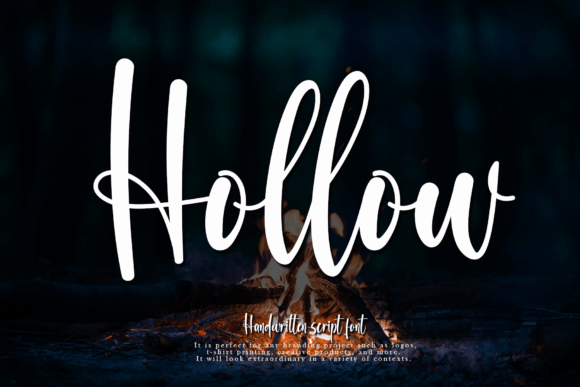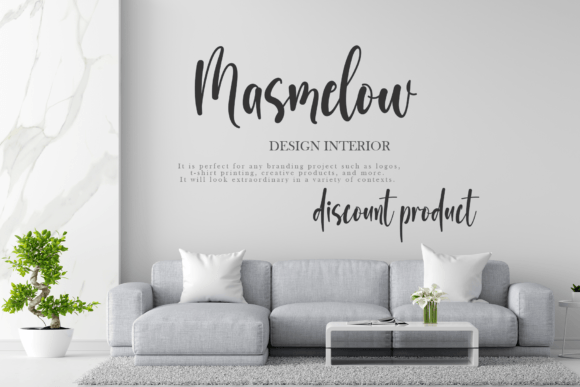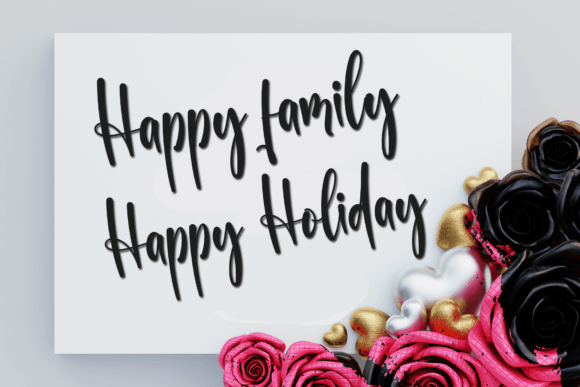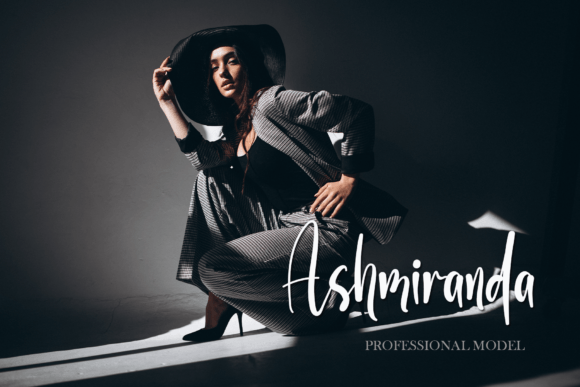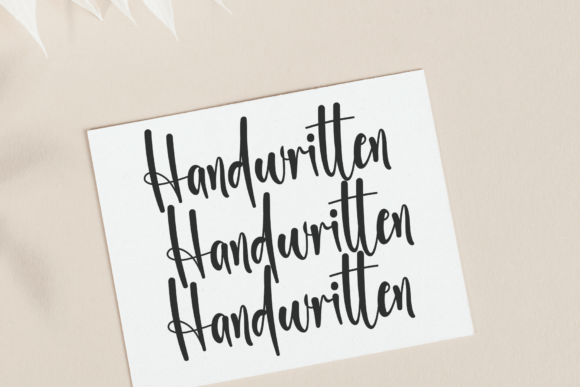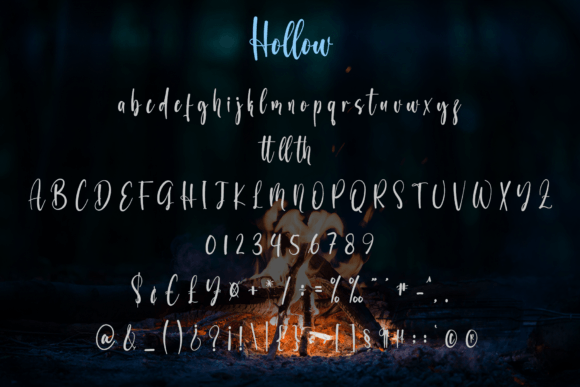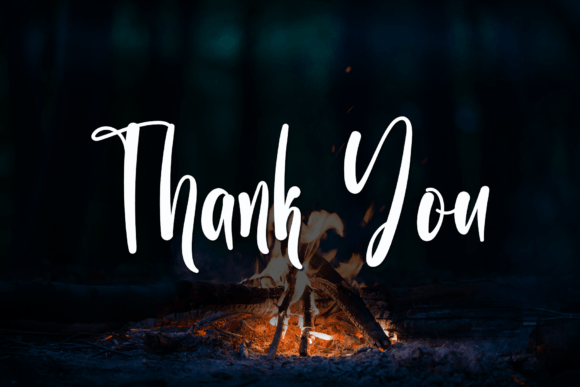
Hollow Font
About Hollow Font
Hollow is a charming and distinctive handwritten font that effortlessly combines simplicity with a quirky flair. With its classy, elegant, and modern appearance, this font is a versatile choice suitable for a variety of creative applications. Whether you’re working on logos, branding, invitations, stationery, wedding designs, social media posts, or any other project, Hollow adds a unique touch to elevate your visual content.
The simplicity of Hollow gives it a timeless quality, making it suitable for both contemporary and classic design aesthetics. Its quirky look adds a playful element, injecting character and personality into your text. This font stands out with its ability to seamlessly blend sophistication with a touch of whimsy, making it an excellent choice for diverse design purposes.
Imagine the impact of Hollow in your projects – from creating a distinctive logo that leaves a lasting impression to crafting elegant invitations that set the tone for special occasions. Its adaptability ensures that whether you’re working on digital or print materials, this font brings a consistent and stylish appeal to your designs.
The versatility of Hollow shines through in its application across various platforms, making it well-suited for social media posts and branding materials. Its modern aesthetic resonates with contemporary design trends, ensuring that your content remains fresh and relevant.
In conclusion, Hollow is more than just a font; it’s a design asset that adds a touch of class, elegance, and modernity to your creative projects. Elevate your visual communication with the distinctive and quirky charm of Hollow, whether you’re crafting logos, invitations, or engaging social media posts. Let this font be the stylish and versatile tool that enhances the visual appeal of your designs across different mediums.